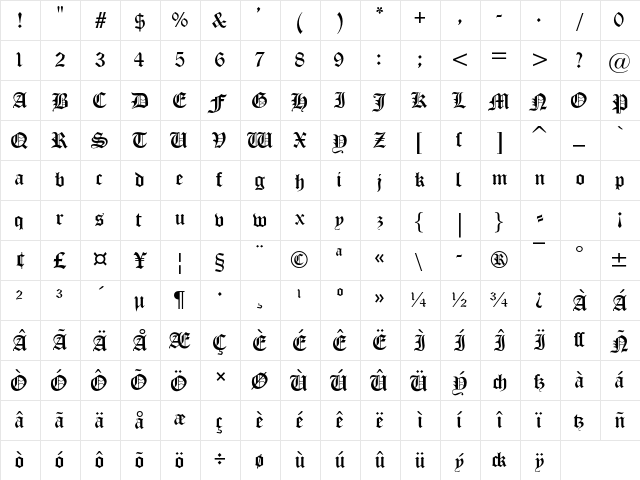
Old London Alternate Regular
| Designer | Dieter steffmann |
Design Context for Old London Alternate Typeface
Old London Alternate is a composed and adaptable typeface that performs quietly and consistently across a wide range of design contexts.